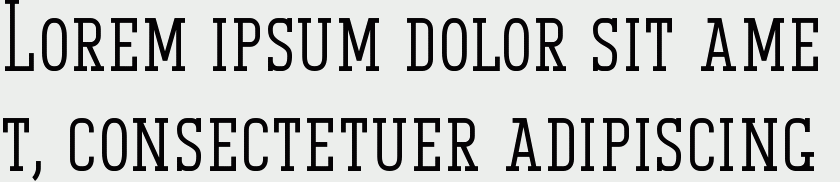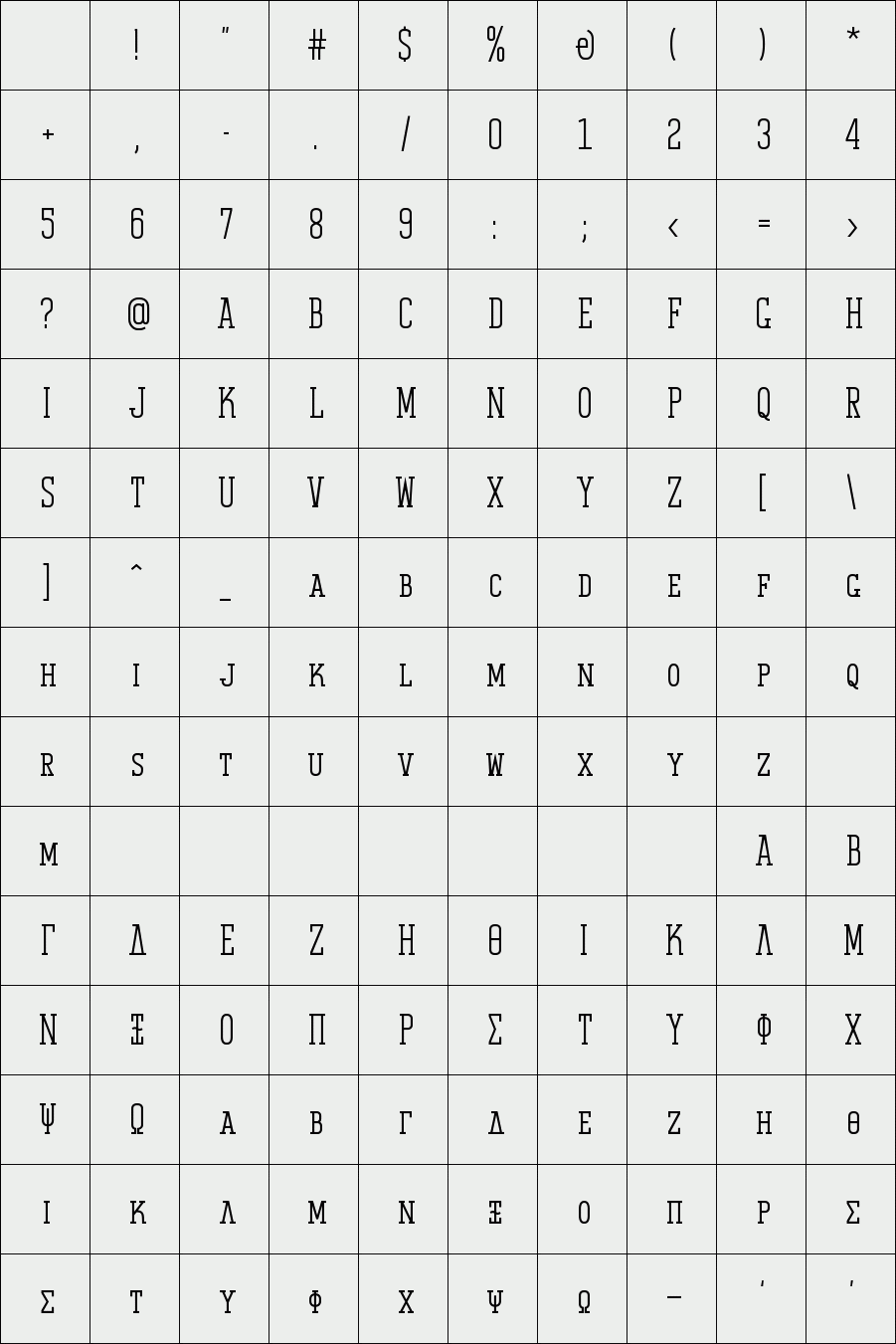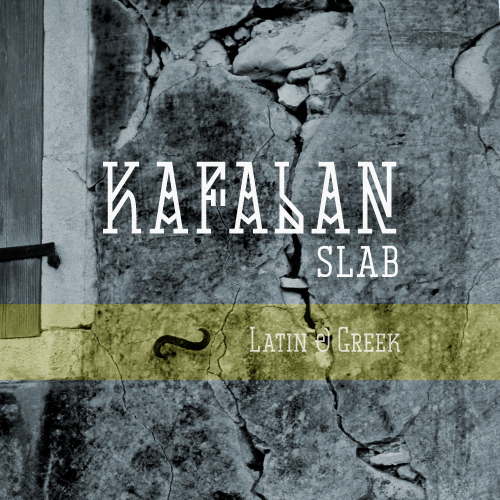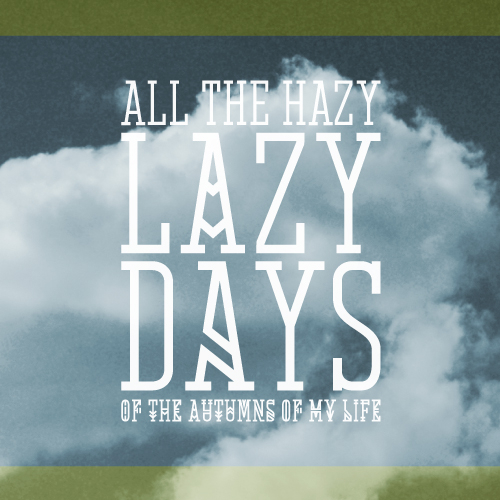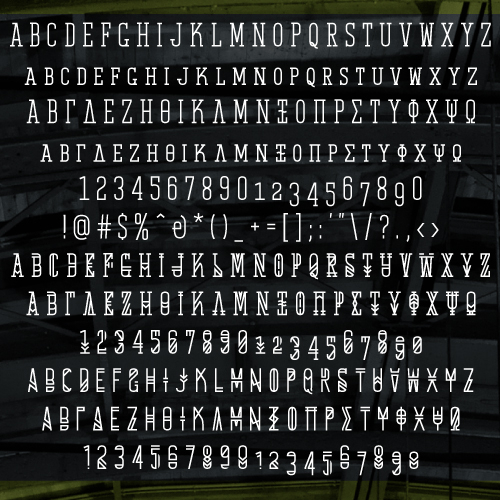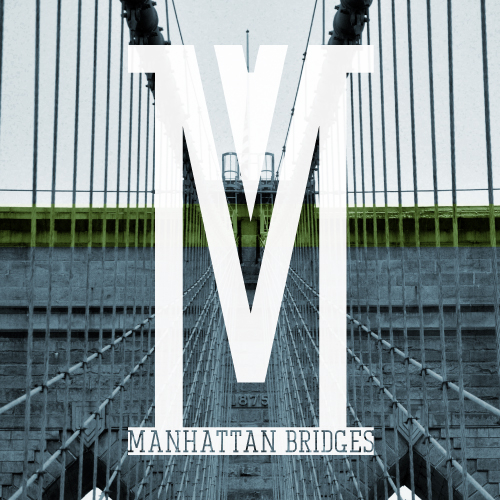
Kafalan Serif
/ Kafalan Serif Regular
Kafalan Serif is a decorative compressed font with square serifs that supports English and Greek. It features small caps instead of lowercase letters, and two additional alternative glyphs for each uppercase letter and number. It also supports oldstyle numbers and the first alternative uppercase letters are accessed as opentype alternates.
Features:
- Standard letters with small caps
- Alternative alphabet
- Regular & Italics
- Special characters
- Numbers
Designer: Kostas Bartsokas